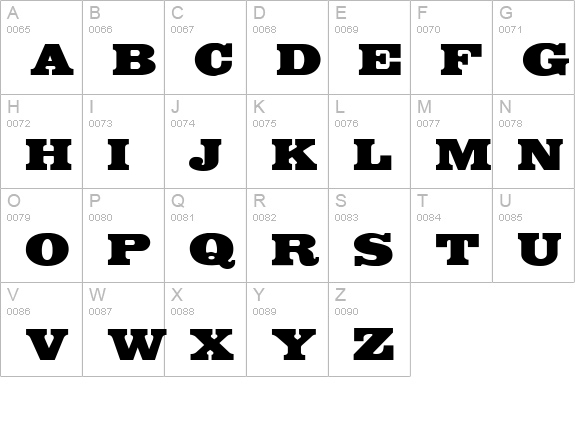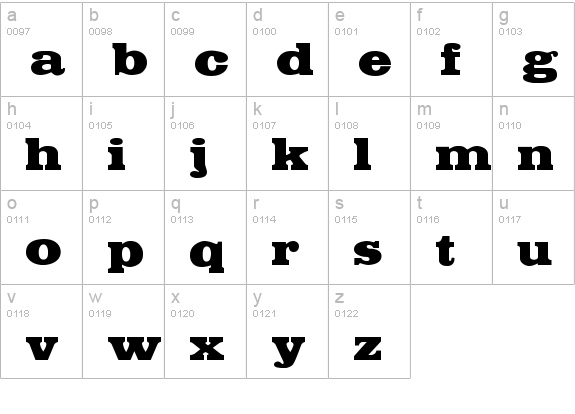
EgyptianWide-Regular Font Details
EgyptianWide-Regular is the standard, neutral variant in the EgyptianWide typeface family \xE2\x80\x94 well suited to general body text, paragraphs, and standard typographic work.
EgyptianWide-Regular is a versatile and stylish font that combines classic Egyptian typeface elements with a modern twist. Its bold and strong presence makes it perfect for headlines, posters, and branding materials. With its clean lines and distinctive serifs, EgyptianWide-Regular exudes a sense of sophistication and elegance. What sets EgyptianWide-Regular apart is not only its striking appearance, but also the fact that it is available for free download at FontsMarket.com. This means that designers and creatives can easily access this high-quality font without any cost, making it a valuable addition to their font library. Whether you're working on a print design project or a digital campaign, EgyptianWide-Regular is sure to make a bold statement and elevate your work to the next level.